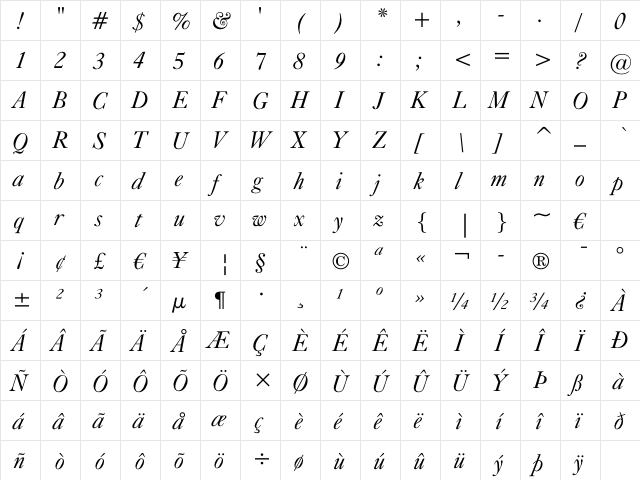
Caslon540 Italic
Design Context for Caslon540 Typeface
Caslon540 is a composed and adaptable typeface that performs quietly and consistently across a wide range of design contexts. The dynamic lean of this cut emphasises speed and emphasis in any layout.
Pro Tip: Try Caslon540 for annotation and caption copy alongside an upright companion — the contrast in angle creates a dynamic but ordered typographic system.